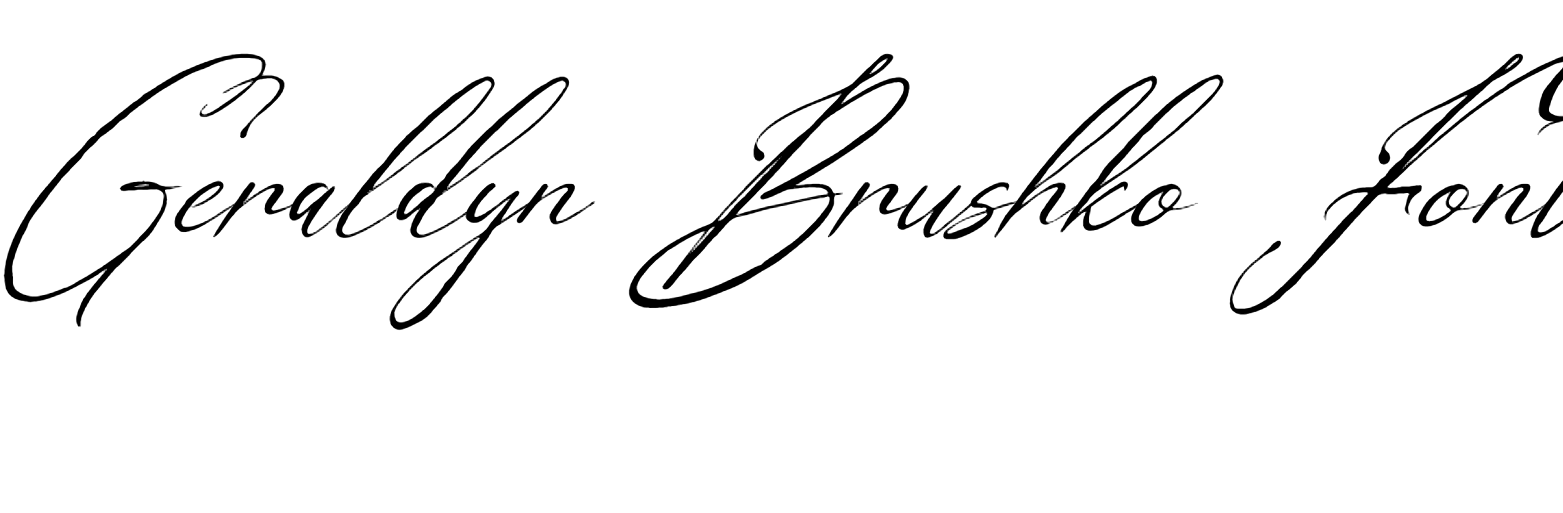
Geraldyn Brushko
Geraldyn Brushko is a calligraphy font created by Dede Nugraha and released through Denustudios (2022). Its flowing, pen-made letters give names and short phrases a personal, polished look. You can download it for free and test it with your own words in the preview above.
- Designer: Dede Nugraha
- Publisher: Denustudios
- OpenType features: Ligatures and 5 stylistic sets
- Extra characters: 66 copy-and-paste alternates (Private Use Area)
What You Can Type With Geraldyn Brushko
With complete upper and lowercase letters and all ten digits, Geraldyn Brushko is ready for real wording, not just a single headline. Common punctuation such as &, !, ? and @ is included as well. It also has the accented letters you need for Spanish, French, German, Portuguese and Italian.
Where Geraldyn Brushko Works Best
Designers usually reach for fonts like Geraldyn Brushko when they're making wedding invitations, certificates and elegant quotes. Its lowercase letters are small compared to the capitals, so set it a size or two bigger than usual. Script fonts read best in short bursts, so keep it to names, titles and one-line quotes. Skip all caps: script capitals are drawn to start a word, not to fill one.
Does Geraldyn Brushko support accented letters?
Yes. Geraldyn Brushko includes the accented letters needed for Spanish, French, German, Portuguese and Italian, so it works for more than just English.